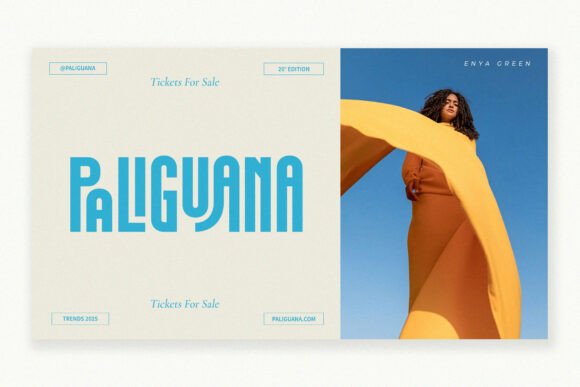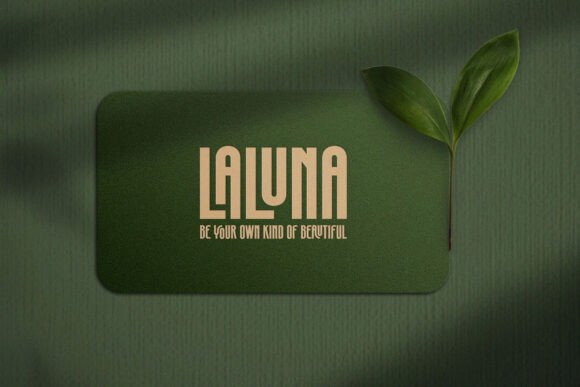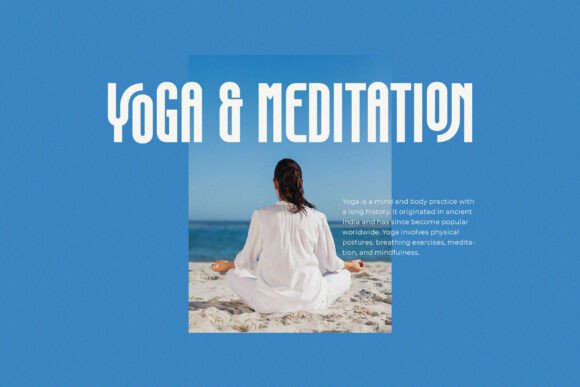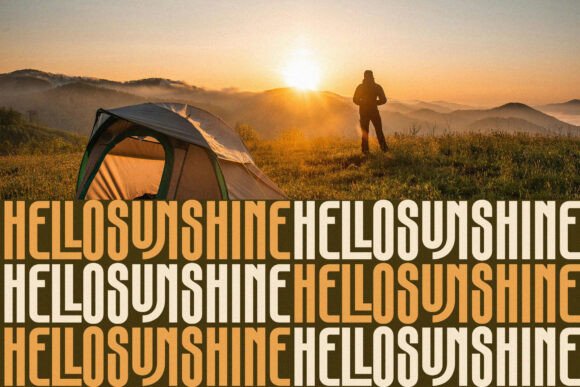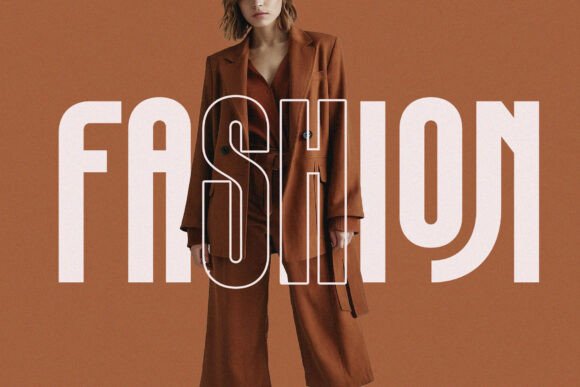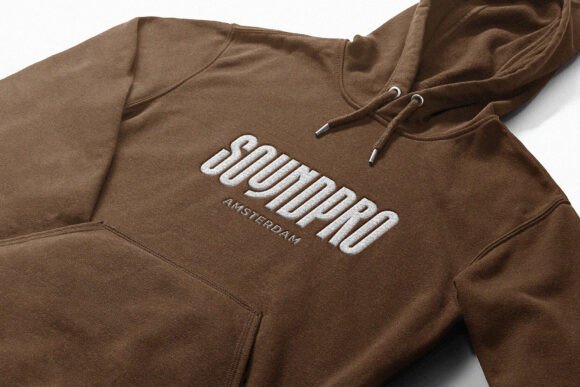
Introduction to Normiyola Font
Have you ever stared at a blank page, struggling to find the perfect font to bring your creative project to life? We’ve all been there. But what if you could unlock a world of unique and modern typography with just one click?
That’s where the Normiyola Font comes in – a game-changing design resource that’s perfect for adding an extra touch of class to your next project. With its clean lines, smooth curves, and versatile style, this font is sure to elevate your branding, magazine layouts, product packaging, and even invitations to the next level.
Key Features of Normiyola Font
- Unique Design: Normiyola Font offers a distinctive and elegant design perfect for various creative projects.
- High-Quality Font: This font is crafted with precision and attention to detail, ensuring a high-quality visual experience.
- Perfect for Design Projects: Normiyola Font is an ideal choice for designers working on various creative projects, including logos, brochures, and more.
Honest Review: Normiyola Font
As a designer, I’m always on the lookout for high-quality design resources to elevate my creative projects. Recently, I came across the Normiyola Font, and I must say it’s a great addition to my collection.
What works well is the font’s unique blend of modern and vintage styles, making it perfect for a wide range of designs, from minimalist logos to intricate typography.
However, I did encounter some limitations during my testing. The font can be a bit challenging to customize, and the font sizes may not adjust perfectly in all situations.
Overall, I’m impressed with the Normiyola Font’s potential to elevate my designs. With a bit more customization flexibility, it could become an even more valuable resource in my design toolkit.